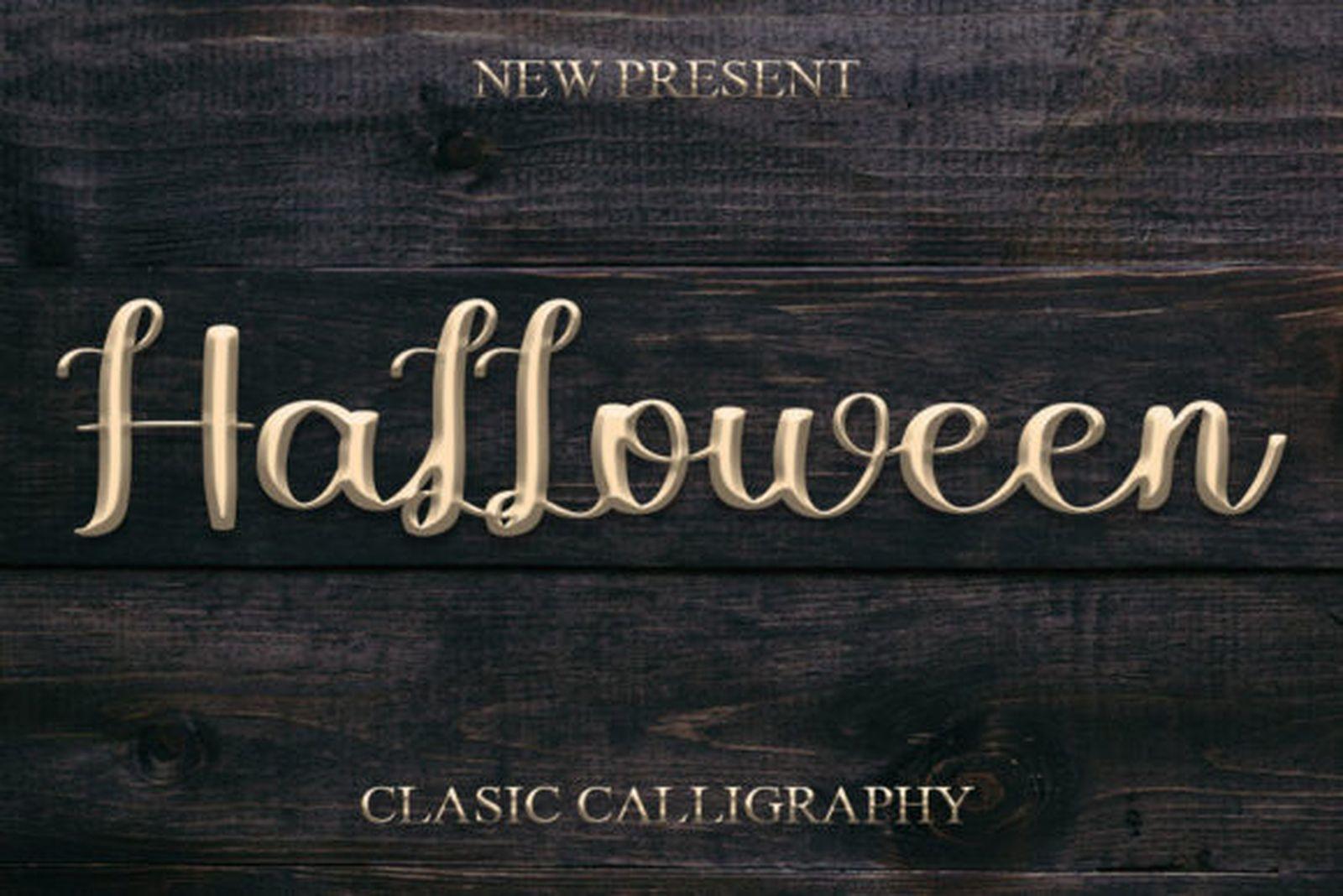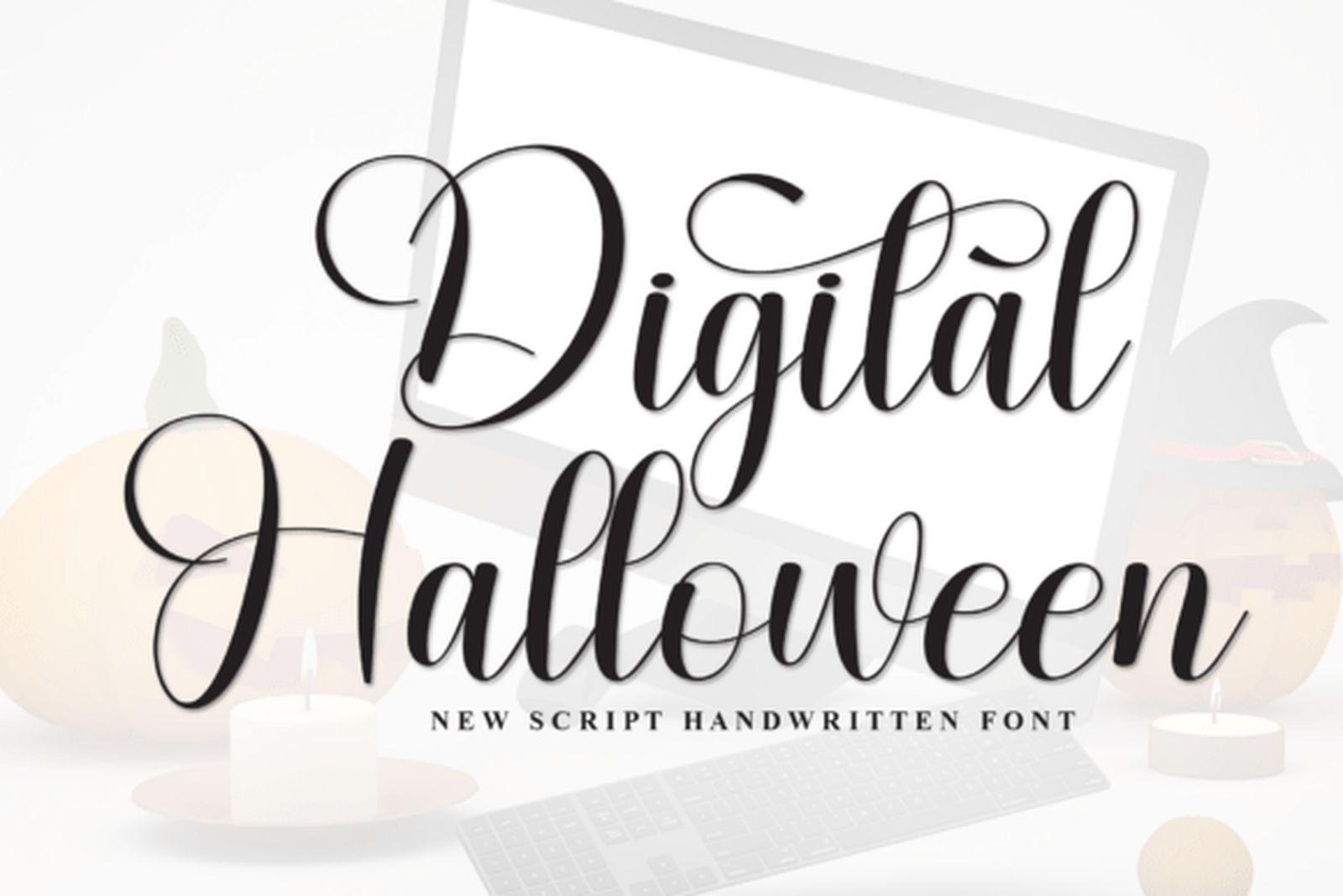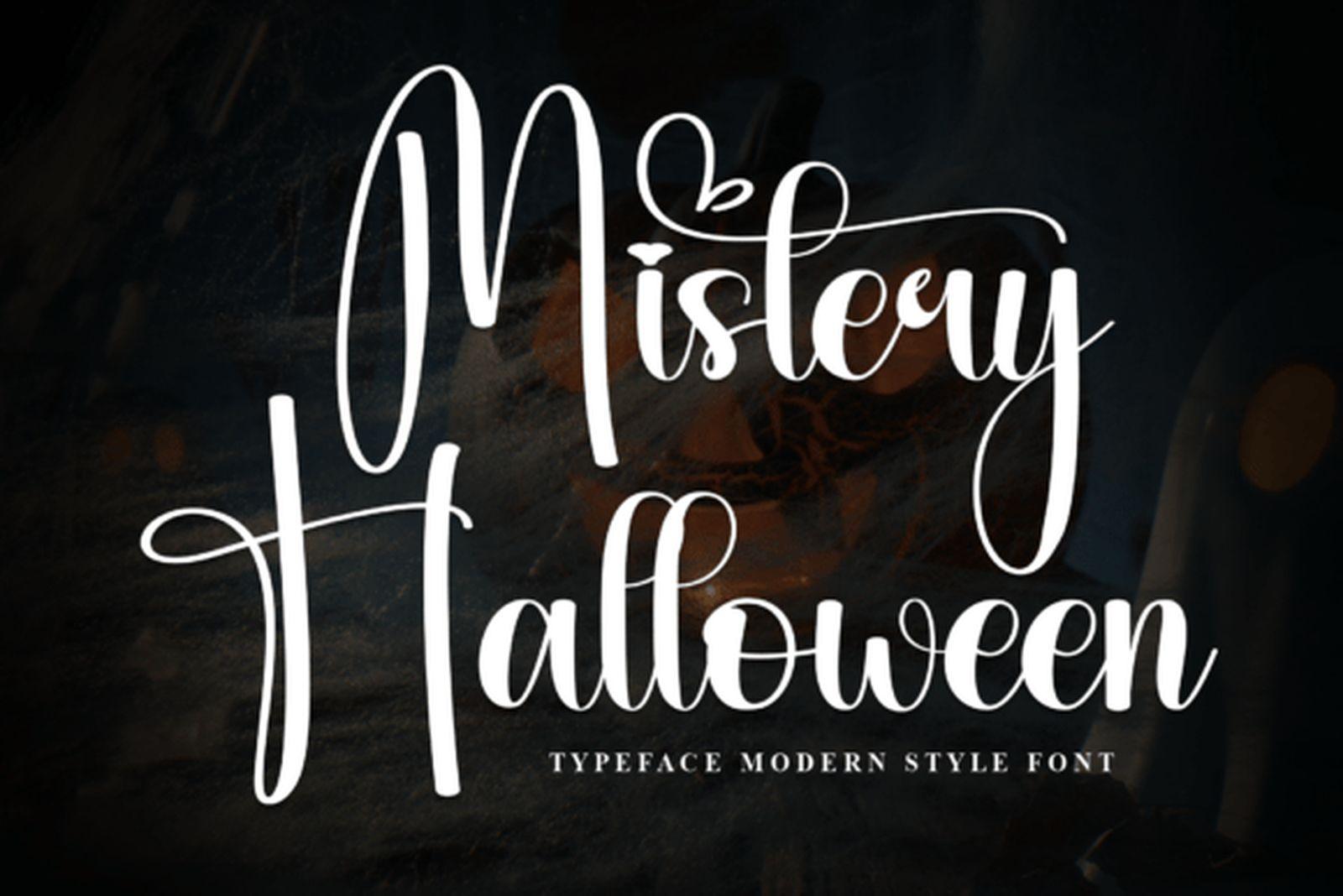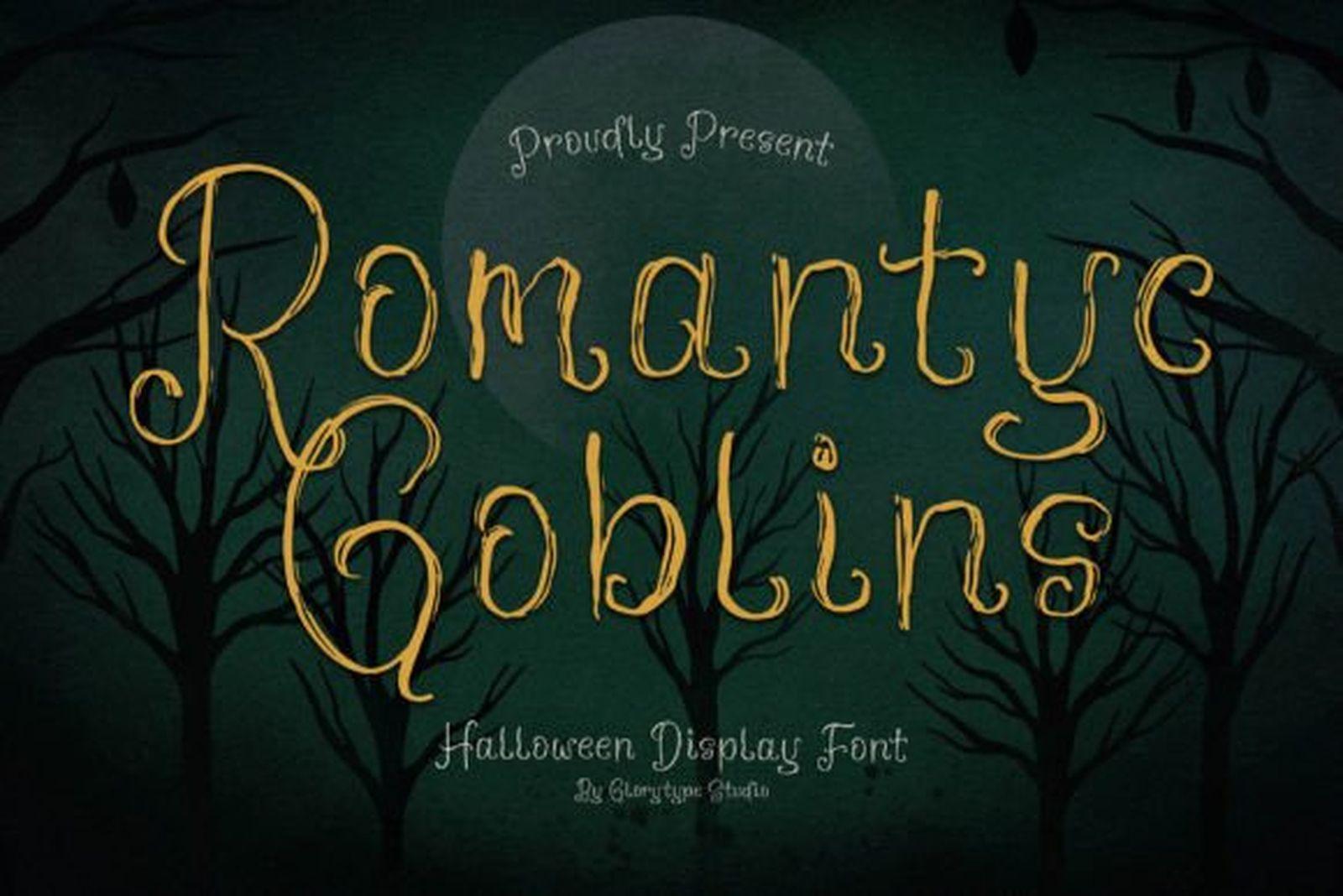
Happy Halloween font collection cover with handwritten and classy script lettering, pumpkins and candlelight on a dark background
Happy Halloween Font: 15 Handwritten and Classy Picks for Cards, Banners and Porch Signs
A Happy Halloween greeting is short, friendly and usually handwritten. It sits on a card tucked into a treat bag, across a party banner or on a chalkboard by the front door, and the people reading it are neighbours, kids and friends, not horror fans. That is why dripping blood letters and scratched horror capitals often feel wrong here. The message wants warmth with a little spooky wink.
This collection gathers 15 script, calligraphy and handwritten fonts with a Halloween mood that stay readable at a glance. They are grouped by feel: classy calligraphy for invitations and signs, relaxed handwriting for cards and tags, and playful scripts for kids’ projects, stickers and Cricut cuts.
Classy and Calligraphy Happy Halloween Fonts
These five lean elegant. They suit adult parties, dinner invitations and porch signs where the design should feel styled rather than cartoonish.
1. Halloween Font by FreshTypeINK
Halloween Font by FreshTypeINK, classic calligraphy script in gold letters on dark wood
Best For: invitation headers, porch signs, gift labels for adult parties
This is classic pointed-pen calligraphy: the strokes swell on the downstrokes and thin out on the joins, and the capital H opens with a relaxed loop. The preview sets it in gold on dark wood, and the style reads more like a vintage shop sign than a Halloween gimmick.
Because the letterforms are not tied to Halloween imagery, the same font works after October too; the product gallery shows it on Wish You, Night Moment and Thank You designs. Use it large for one or two words and let a plain serif carry dates and addresses, since the thin hairlines fade at small sizes.
2. Digital Halloween Font by andikastudio
Digital Halloween Font by andikastudio, high-contrast formal script with tall looped capitals
Best For: formal invitations, envelope addressing, elegant party menus
Digital Halloween is a high-contrast formal script with tall, looped capitals and narrow lowercase letters. The D and H carry most of the drama, while the rest of the word stays tidy and even.
It feels closest to wedding-style lettering in this list, which makes it a good pick for a costume gala or a grown-up dinner invitation. Give it generous line spacing so the capital loops do not collide with the line above.
3. Mistery Halloween Font by Roronoa zoro.S.P.D
Mistery Halloween Font by Roronoa zoro.S.P.D, tall condensed script with oversized looped capitals
Best For: long banners, one-line signs, social media headers
Mistery Halloween is tall and condensed, with oversized looped capitals that rise well above the lowercase. The narrow body lets a whole phrase fit across a single line.
That makes it practical for wide formats: a banner over the snack table or a header across a party post. Keep it at display size, because the tight letter widths start to merge when the font gets small.
4. Romantyc Goblins Font by Glorytype Studio
Romantyc Goblins Font by Glorytype Studio, vintage display serif with curling swash terminals
Best For: vintage labels, apothecary jars, storybook-style posters
Romantyc Goblins is the only serif-based pick here: a vintage display face with curling swash terminals, shown in gold on a dark forest background. It looks like the title on an old storybook cover.
Use it where the theme is antique rather than cute, such as potion bottle labels, a haunted library party or a vintage poster. Pair it with a quiet handwritten script from the next section if the design needs a softer second line.
5. Halloween Night Font by Bassoonartwork
Halloween Night Font by Bassoonartwork, bouncy handwritten script with wide rounded loops
Best For: party invitations, flyers, window signs
Halloween Night is a bouncy script with wide, rounded loops and a relaxed baseline that lets letters sit slightly higher or lower. It keeps the elegance of a script but loses the stiffness of formal calligraphy.
It bridges this section and the playful one: polished enough for an invitation, friendly enough for a family party flyer. It reads well in white or yellow on a dark background, the way its own preview shows it.
Handwritten Happy Halloween Fonts for Cards
These look written rather than lettered. They work for the message inside a card, on tags and on anything that should feel personal.
6. Happy Halloween Font by putrasyahreza00
Happy Halloween Font by putrasyahreza00, thin handwritten font with a dry pen texture
Best For: card messages, treat bag tags, handwritten-style captions
This one looks like it was signed with a dry pen: thin, even strokes with a slightly rough edge, tall capitals and simple unconnected lowercase. Nothing about it is ornamental, which is exactly its strength.
Our Pick
If you only choose one, start with the putrasyahreza00 Happy Halloween font for cards and tags: it reads like a real handwritten note and works at any size. For a styled invitation or porch sign, the FreshTypeINK Halloween calligraphy font gives the most polished result.